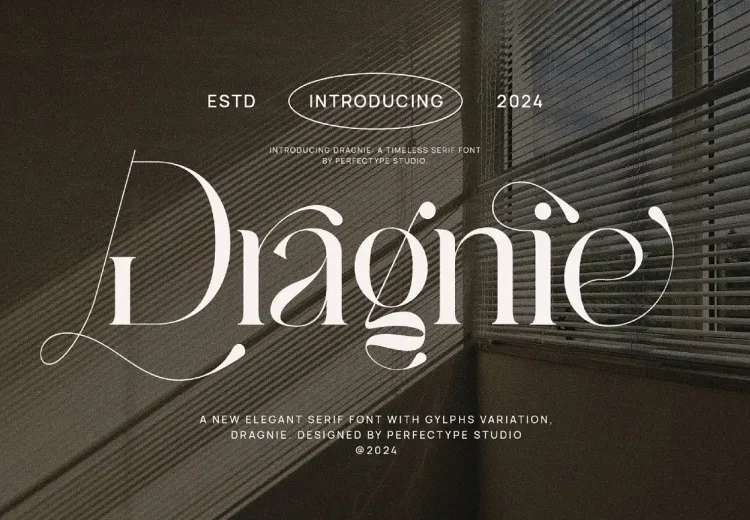
Dragnie Font
Dragnie is a sleek serif typeface that merges contemporary design elements with classic elegance. Its refined style makes it an ideal choice for a variety of applications, including logos, branding projects, wedding designs, social media ads, and product packaging.
The font’s sophisticated appearance ensures it makes a strong first impression, whether used in branding materials or wedding invitations. Its versatility also extends to labels, product designs, photographs, watermarks, invitations, and stationery, providing an easy-to-read and stylish solution for your design needs.
Investing in Dragnie means adding a touch of modern sophistication to your projects, enhancing their visual impact and readability.